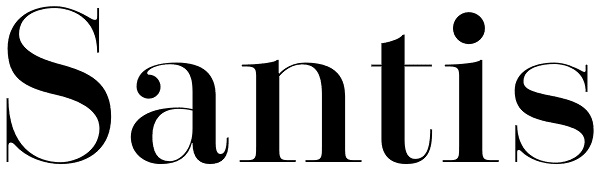
Santis
Santis is a multiface type, special for logos, brands, magazines and editorial world. Especially for setting trends in fashion and design. The particularity of this font is that you can easily read it, even when applying swash type letters. It is a...